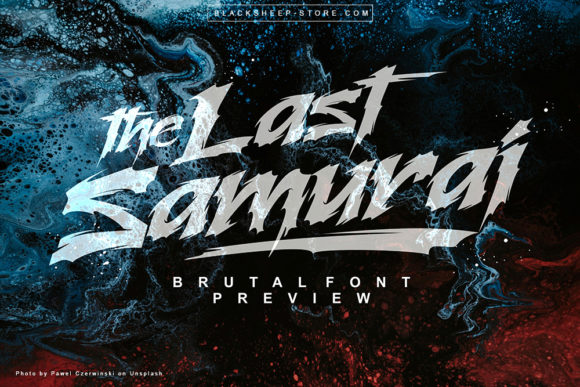
Brutal Font
Brutal Font is a cool and adaptable display font. This font is suitable for designs such as t-shirts, sportswear, posters, logos, advertisements, clothing, and more.
Brutal Font is a cool and adaptable display font. This font is suitable for designs such as t-shirts, sportswear, posters, logos, advertisements, clothing, and more. Whatever the topic, this font will be a great asset to your font collection, as it has the potential to enhance any creation.